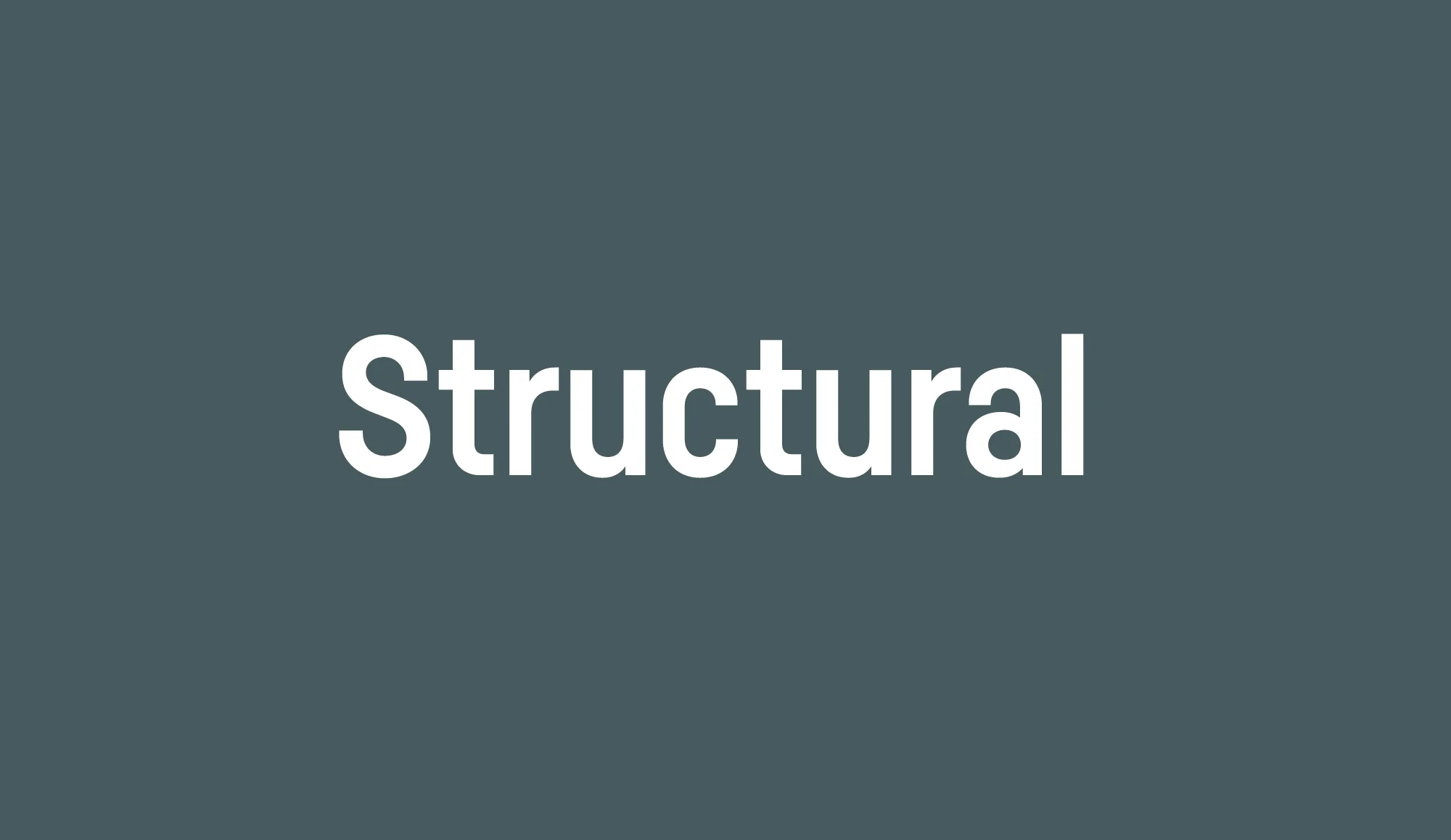
Fabrikat Kompakt
A condensed companion to HvD Fonts' Fabrikat, cut for tight headlines and display settings where geometric clarity is needed at narrow widths.
Fabrikat Kompakt extends the Fabrikat family into compressed proportions, making it suited to posters, headlines and space-constrained layouts. The geometric structure of the parent family carries through, preserving optical consistency across the two widths. A broad weight range supports graded typographic hierarchies within a single condensed style.
Fabrikat Kompakt is a condensed geometric sans-serif, part of HvD Fonts' Fabrikat family, designed for tight settings and display use.